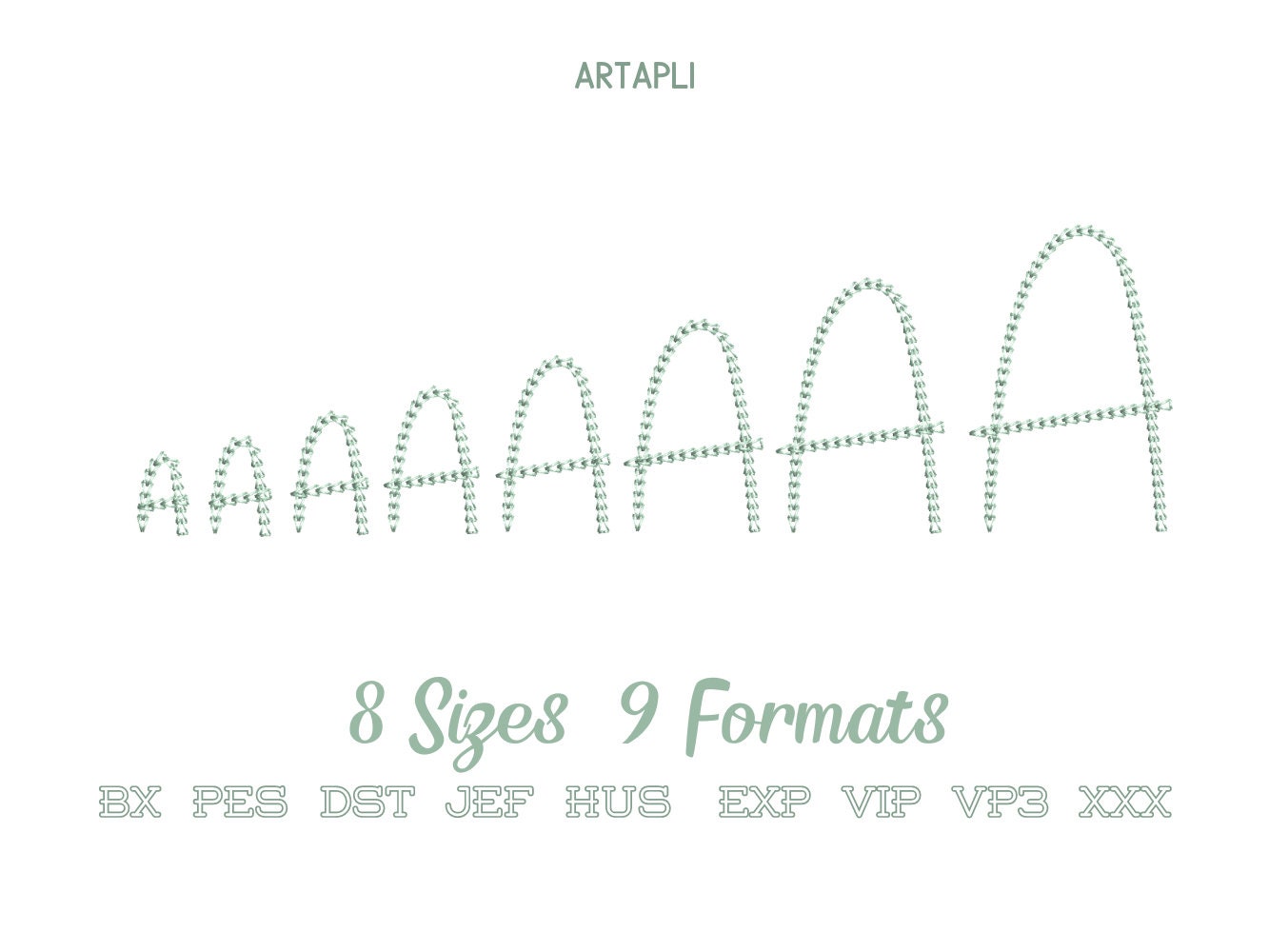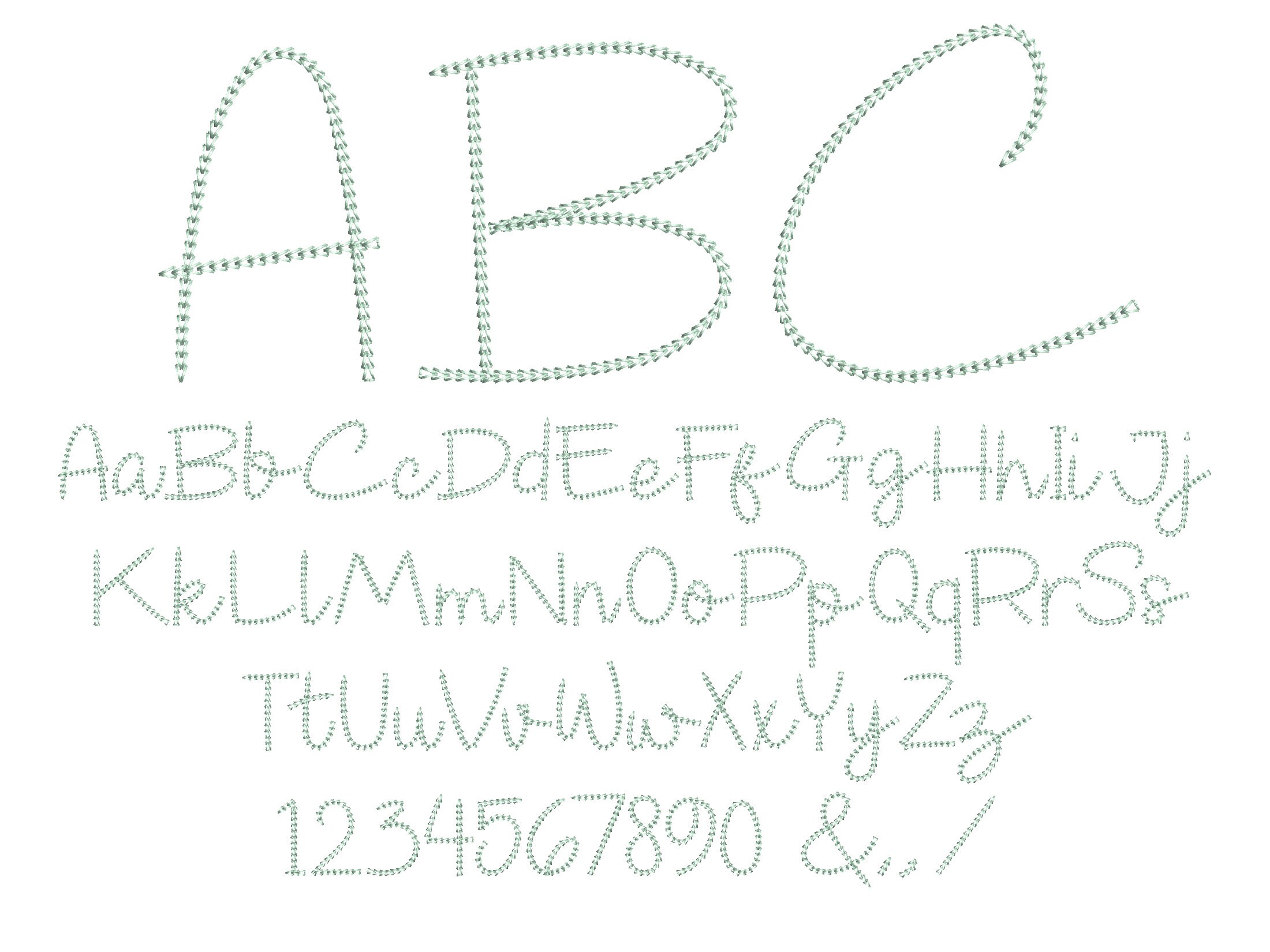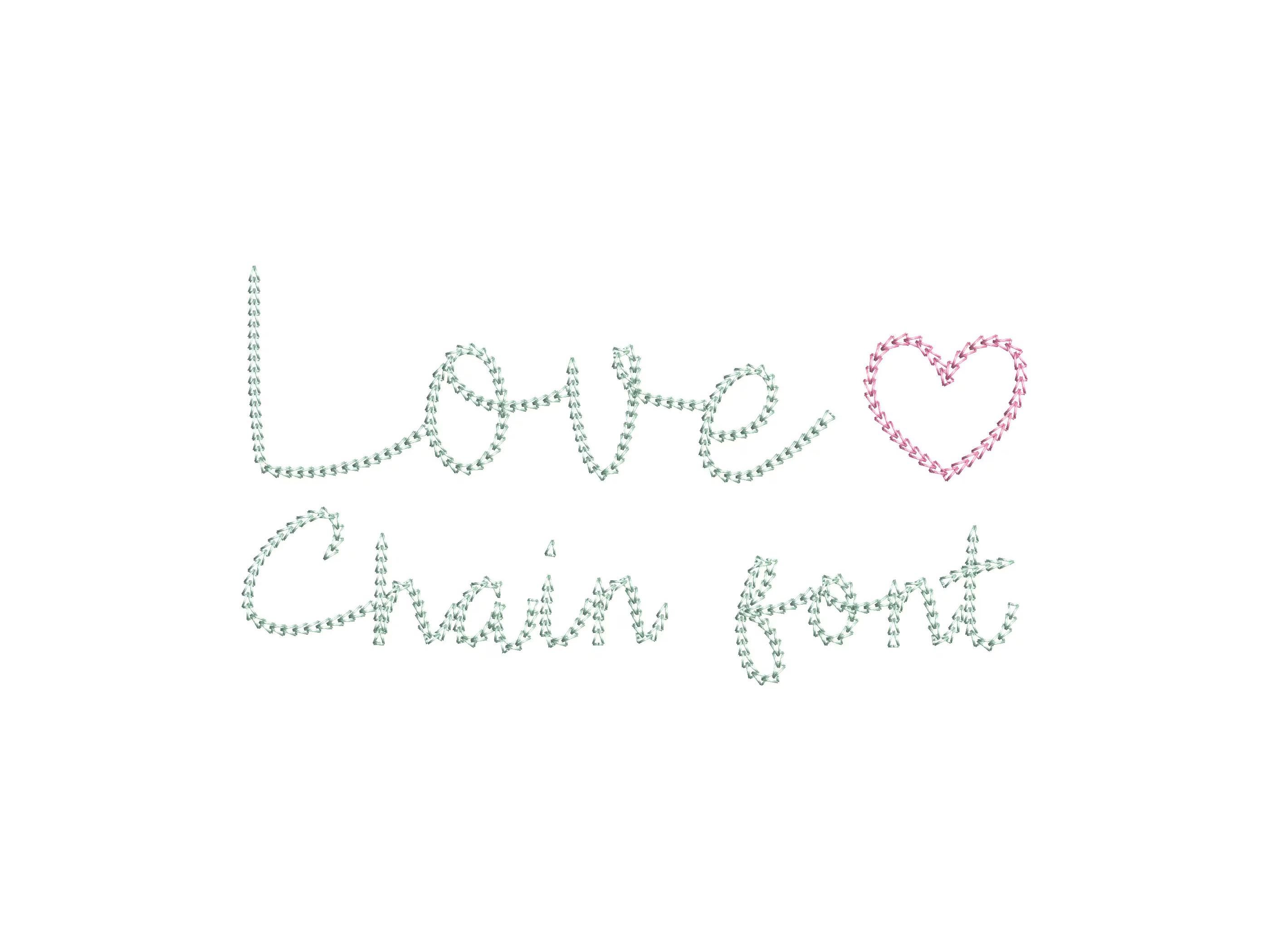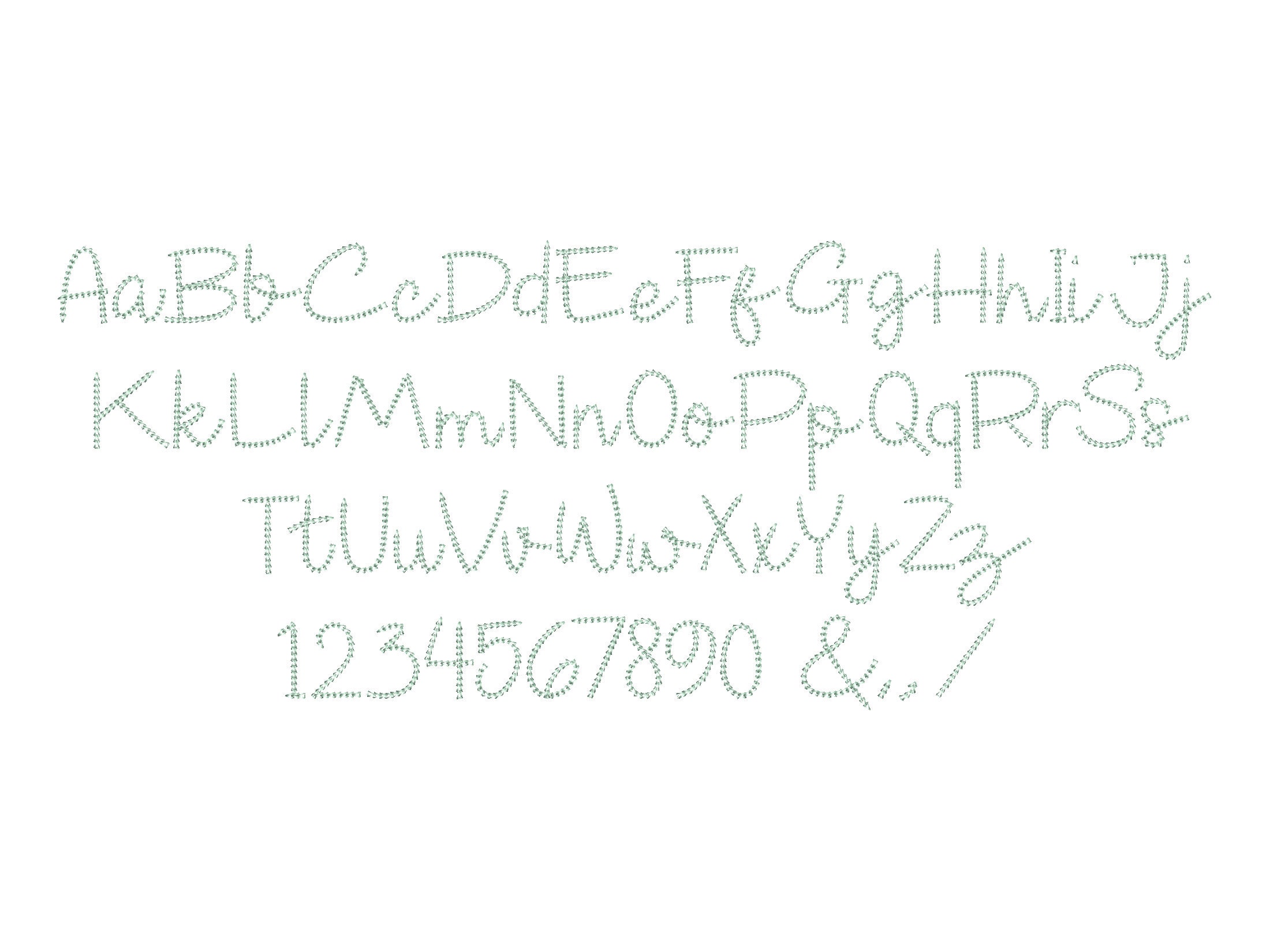
Quick light stitch Love Chain FONT machine embroidery designs multiple MINI sizes alphabet letters playful kids name monogram saying, BX included
Whole alphabet A-Z uppercase and lowercase letters, numbers and punctuation.